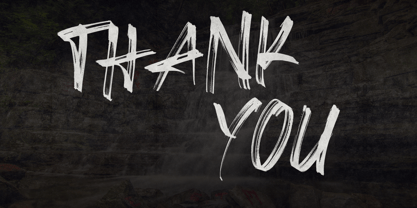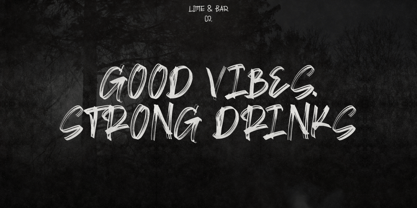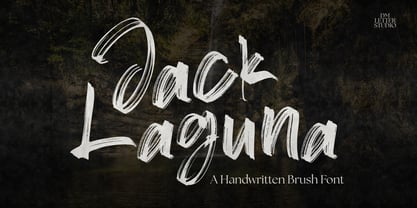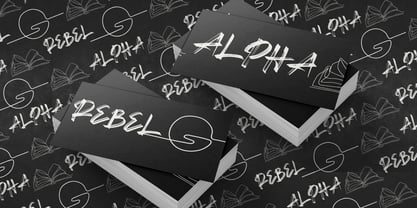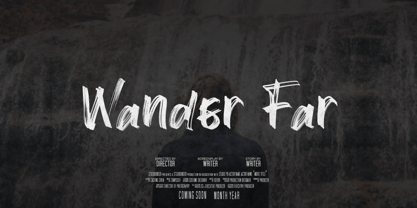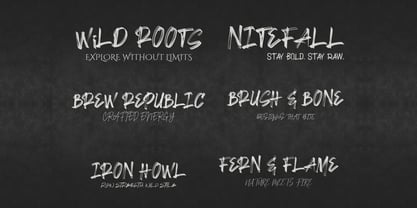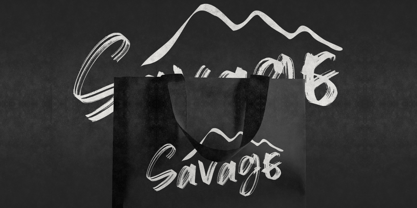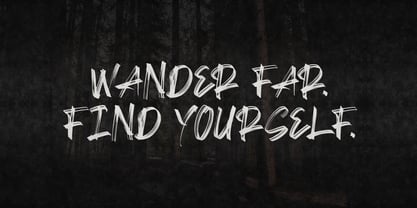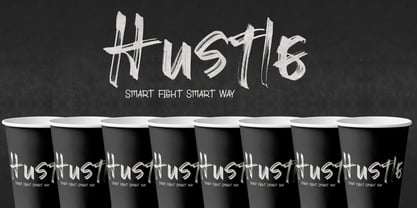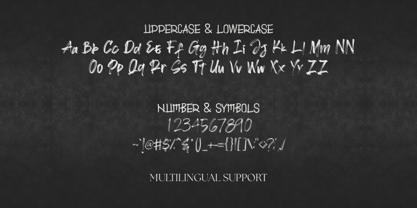
Jack Laguna
The Jack Laguna Font Family was designed by Dimas Prasetyo and published by DM Studio. Jack Laguna contains 1 styles. More about this family
Jack Laguna – Bold Handwritten Brush Font Jack Laguna is a bold handwritten brush font that bursts with energy and character. With strong brushstrokes, raw textures, and an effortlessly cool rhythm, this font captures the essence of hand-painted signage and fast-paced lettering. Whether you're designing for fashion, branding, packaging, or social media, Jack Laguna delivers loud personality in every stroke. As a handwritten brush font, Jack Laguna combines the edginess of dry brush strokes with modern legibility. The natural imperfections and pressure variation give the font an authentic hand-crafted look—perfect for designs that want to feel bold, organic, and rebellious. It’s a top pick for streetwear logos, posters, energetic quotes, product labels, YouTube thumbnails, or any artwork that needs a confident voice. Jack Laguna includes uppercase and lowercase letters, numbers, punctuation, and multilingual support, making it versatile for global use. The letters are built with balance in mind—giving you the vibe of a free-flowing brush while still maintaining consistency in weight and spacing. It works seamlessly across all major design platforms like Adobe Illustrator, Photoshop, Canva, Procreate, Affinity, and Cricut. You can easily pair Jack Laguna with sans-serifs for a modern look or let it stand alone as a statement piece in your design. This font is perfect for creators looking to elevate their branding with something stylish, bold, and distinctly handmade. ✨ Features Authentic brush style with textured strokes Great for logos, quotes, posters, apparel, and labels Includes uppercase, lowercase, numbers, and punctuation Multilingual support (extended Latin characters) Easy to use with Canva, Adobe, Procreate, Cricut, and more Quick install on both Mac and Windows